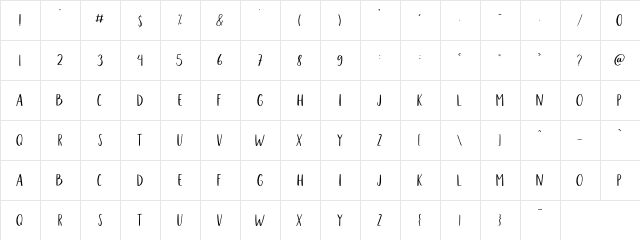
Scary_Ghost_Sans Regular
| Foundry | Jimtype Studio |
| Designer | Jamaludin @Jimtypestudio |
Design Context for Scary_Ghost_Sans Typeface
Scary_Ghost_Sans carries an unsettling edge — its distorted letterforms are built to unsettle, perfectly suited to horror, Halloween, and dark creative work.
Ideal for Halloween projects, horror film titles, haunted house signage, and dark editorial design.
Font Pairing: Pair with a clean neutral sans-serif for body copy to let Scary_Ghost_Sans's character lead without overwhelming the composition.
Pro Tip: Scary_Ghost_Sans works best as a headline or focal element. Pair it against plain, neutral body text to amplify the contrast.